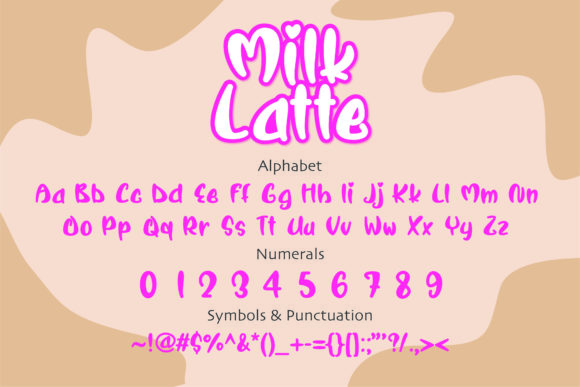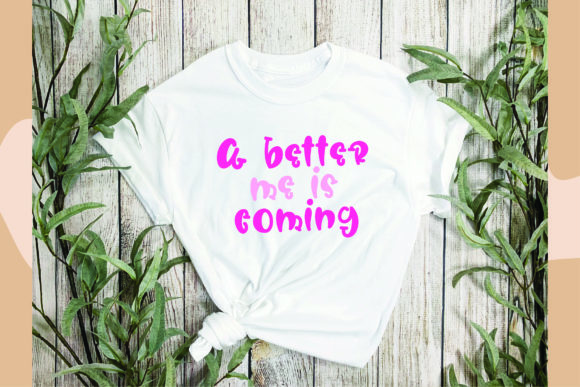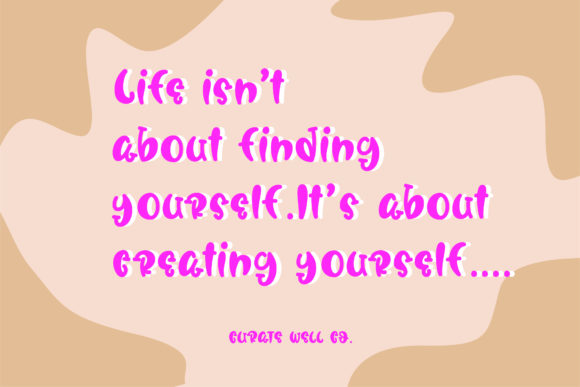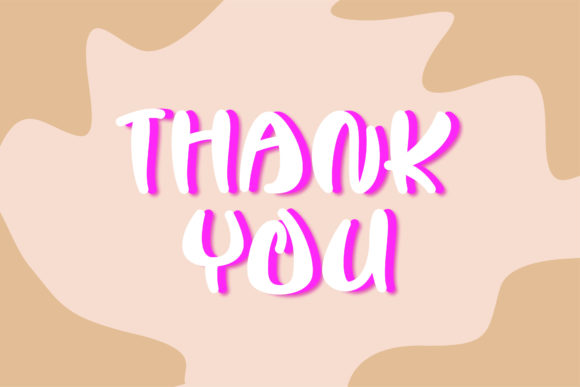
Introduction to Milk Latte Font
Milk Latte is a chic and whimsical display font.
Whether youโre using it for crafting, digital designing, presentations or greeting cards making, itโs perfect .
Key Features of Milk Latte Font
Why Choose Milk Latte Font?
Milk Latte Font offers exceptional quality and versatility, making it a valuable addition to your design toolkit. Whether you’re creating for personal projects or commercial use, Milk Latte Font delivers professional results.